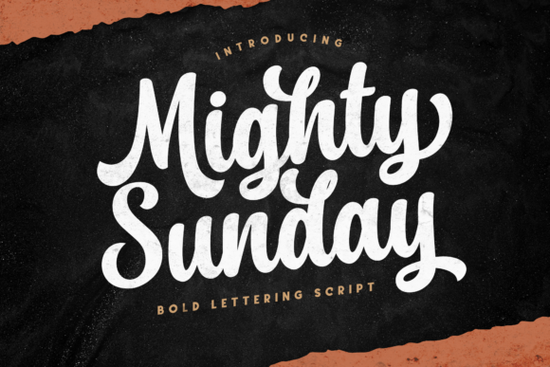
If you’re looking for a script font that feels both modern and full of personality, Mighty Sunday Font might be just what your next project needs. It’s bold without being overwhelming, with each letter carrying its own subtle flair perfect for logos, quotes, packaging, or even social media graphics. Whether you're running a small business, selling printables, or just love crafting beautiful designs, this font adds character without requiring advanced design skills.
One thing that makes Mighty Sunday especially handy is its PUA encoding. That means all the extra glyphs, swashes, and alternate characters are easy to access even if you’re using basic software like Canva or Silhouette Studio. No need to dig through complicated glyph panels or install multiple font files. Just type, select, and style.
What kinds of projects work best with Mighty Sunday?
This font shines when used in designs that want to feel personal but still polished. Think:
- Wedding invitations or event signage
- Branding for boutique shops or handmade goods
- T-shirt quotes or tote bag slogans
- Social media banners or quote graphics
- Print-on-demand products like mugs, stickers, or journals
Because it’s a script font with weight and presence, it holds up well at larger sizes but can also be scaled down for smaller applications as long as you keep enough spacing between letters. Pairing it with a clean sans-serif (like Montserrat or Lato) helps balance its expressive curves.
How does it compare to other script fonts on Creative Fabrica?
If you’ve browsed script fonts before, you might have come across Limon Mint, which has a softer, more delicate flow or Amelline, known for its elegant calligraphy style. Pinky leans playful and bouncy, while Nagita offers a more vintage-inspired script with ornate details.
Mighty Sunday sits comfortably in the middle it’s got enough boldness to stand out, but not so much flourish that it becomes hard to read. It’s ideal when you want something eye-catching but still legible, especially for short phrases or headlines.
Can beginners use this font effectively?
Absolutely. You don’t need to be a pro designer to make this font look great. Here’s why:
- Easy glyph access – thanks to PUA encoding, special characters show up right in your font menu.
- No complex layering – unlike some decorative scripts, you won’t need to manually adjust overlapping strokes.
- Clear letterforms – even with its unique touches, each character remains distinct and readable.
If you’re new to typography, start by using it for single words or short lines. Avoid long paragraphs script fonts like this one are meant to add emphasis, not carry heavy text blocks.
Any tips for getting the most out of Mighty Sunday?
Here are a few practical suggestions:
- Use generous letter spacing – Especially in all-caps or longer words, a little extra space between letters keeps things clean.
- Try different weights or styles – If available, experiment with lighter or heavier versions to match your project’s tone.
- Layer with simple shapes – Place your text over circles, banners, or ribbons to frame it nicely without competing visuals.
- Stick to 1–2 accent glyphs per word – Swashes are fun, but too many can clutter your design. Pick one or two letters to highlight.
And remember: contrast matters. This font pops best against solid, muted backgrounds. Avoid busy patterns unless you add a subtle drop shadow or outline to help the letters stand out.
Where can I see examples or get inspired?